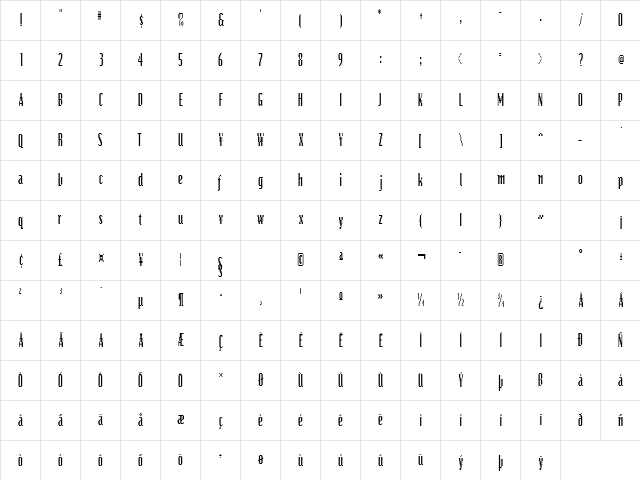
BitsCondensed Regular Font Preview
BitsCondensed Regular
BitsCondensed Regular Font Details
Design Context for BitsCondensed Typeface
BitsCondensed is a composed and adaptable typeface that performs quietly and consistently across a wide range of design contexts. Its narrow stance lets it pack a punch even in space-constrained designs.